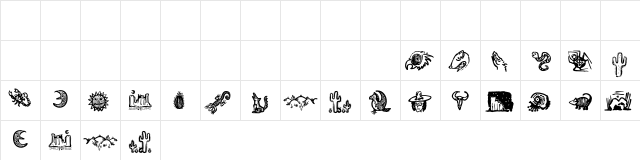
Death Valley Dingbats Regular
Design Context for Death Valley Dingbats Typeface
Death Valley Dingbats leans into the macabre with letterforms designed to disturb and intrigue in equal measure.
Ideal for Halloween projects, horror film titles, haunted house signage, and dark editorial design.